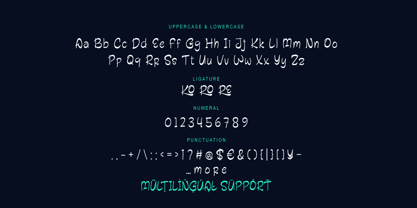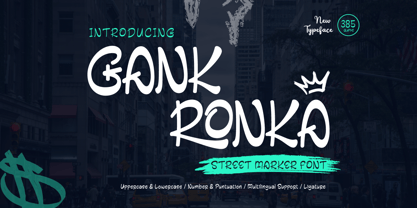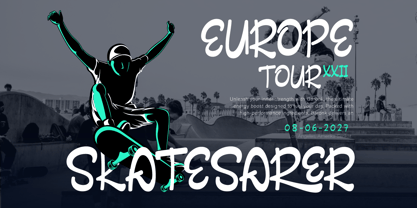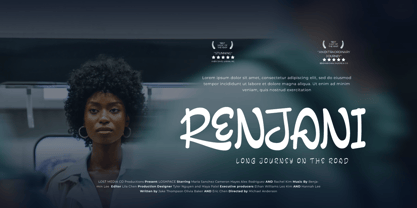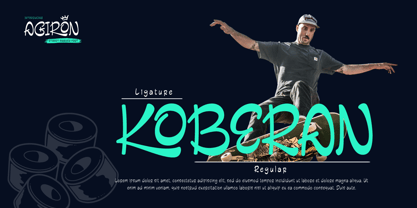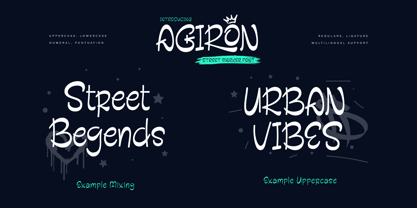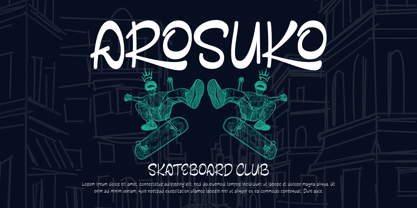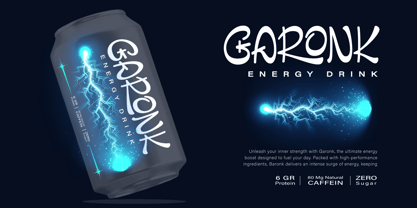
Gank Ronka
Gank Ronka - Street Marker Font is a raw and authentic typeface inspired by street art and graffiti. Its hand-drawn, marker-style strokes capture the spirit of urban culture, bringing a fresh and expressive vibe to your designs. Perfect for streetwear branding, event posters, album covers, and any project that needs a free-spirited, edgy touch, Saeron offers a unique and creative look.
Embrace the energy of the streets with Gank Ronka, and let your designs showcase an urban, artistic flair.